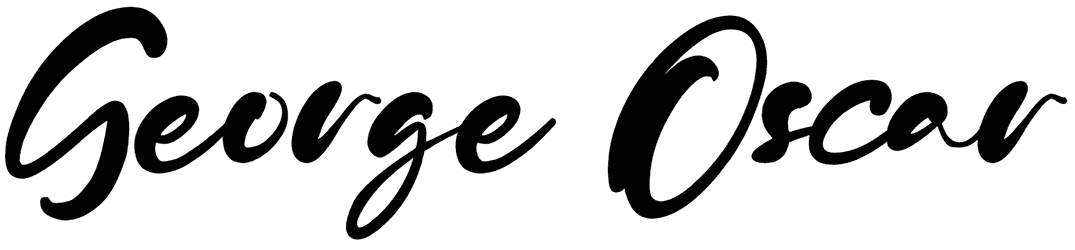
George Oscar Font
If you like artistic and elegant designs, this offer would be attractive to you. This brush font, named George Oscar, includes a catchy and sleek face and can be matched with any taste. With almost A-Z characters, this wedding font can illustrate your intended designs, for instance, posters, apparel, logos, planners, or the like, with an adorable mood.